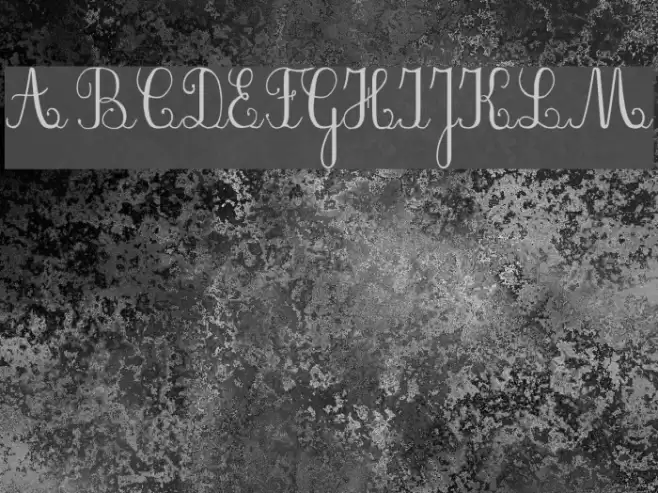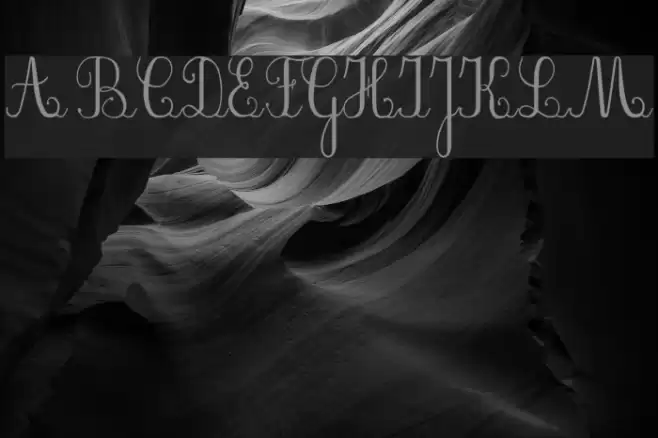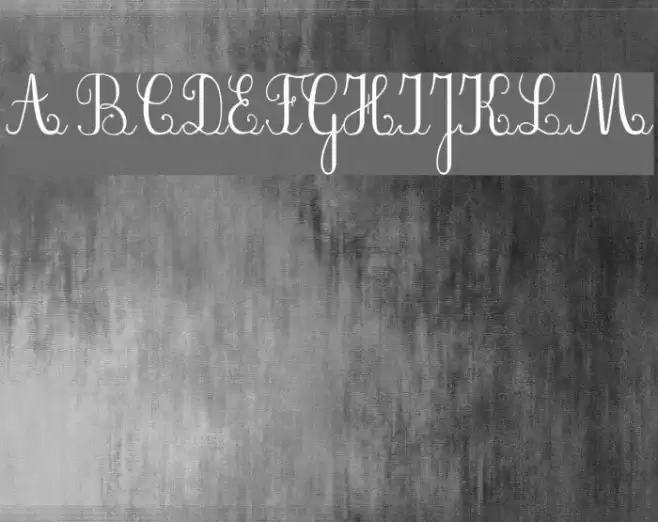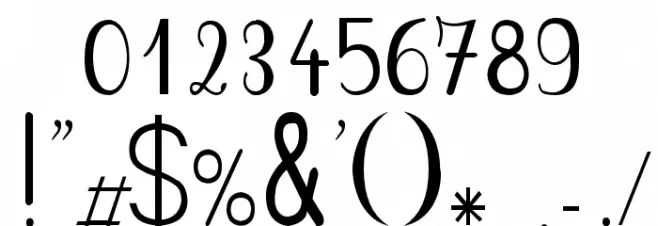
PlumBAE Font
PlumBAE Description
This font features an elegant and sophisticated script style with a flowing, cursive design. The uppercase letters are characterized by their intricate loops and swirls, giving a sense of fluidity and grace. The lowercase letters maintain a consistent style, with elongated ascenders and descenders that enhance the font's decorative appeal. The numerals are more straightforward, offering a contrast to the ornate letters, while the special characters integrate seamlessly with the overall design. This font is ideal for projects that require a touch of elegance and charm, such as wedding invitations, luxury branding, or high-end product packaging.
An elegant script font with flowing, decorative letters and graceful swirls from Handwritten fonts.